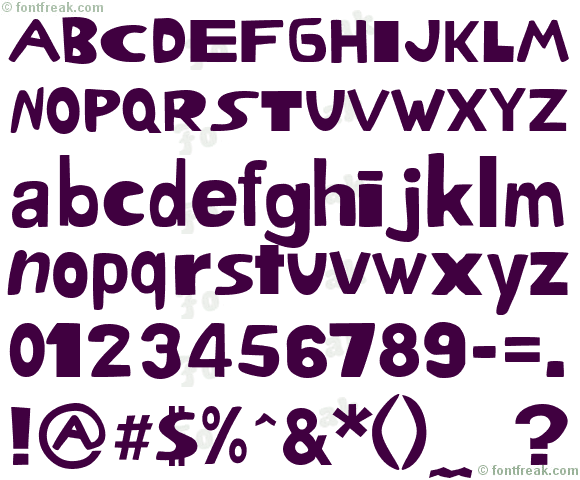
Oogabooga Irregular
Oogabooga Irregular, designed by Thirstype, is a distinctive display font that embodies a playful and quirky essence. This font falls into the decorative category, showcasing an irregular style that instantly captures attention. With its bold stroke weight and unique letterforms, Oogabooga Irregular offers a delightful contrast between thick and thin lines, giving it a dynamic visual appeal. The spacing between characters is thoughtfully designed, enhancing readability while maintaining its whimsical character.
This font is perfect for a variety of creative endeavors. Its standout style makes it an excellent choice for designing vibrant movie posters, where it can evoke excitement and intrigue. Additionally, Oogabooga Irregular works wonderfully for children’s book covers, bringing a sense of fun and imagination to the pages. Small business owners can utilize this font for eye-catching restaurant menus that create a lively dining atmosphere. Furthermore, it serves as an engaging option for promotional materials targeting a younger audience, such as flyers and event invitations.
Graphic designers and content creators will find Oogabooga Irregular to be a valuable addition to their toolkit. Its unique characteristics allow it to stand out in various projects, enabling creators to express their ideas in a visually captivating manner. The font's freeware license provides an accessible opportunity for anyone looking to enhance their designs without budget constraints.
What makes Oogabooga Irregular truly remarkable is its ability to convey personality and emotion through typography. Its playful nature and irregular shapes invite creativity and imagination, making it a memorable choice for any design project. For those interested in exploring this unique typeface, the Oogabooga Irregular font free download offers an inviting opportunity to incorporate this playful style into your work.